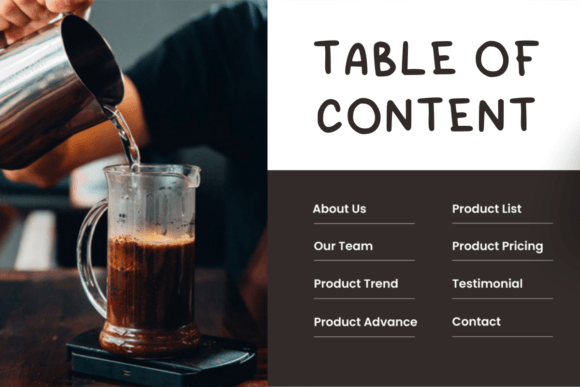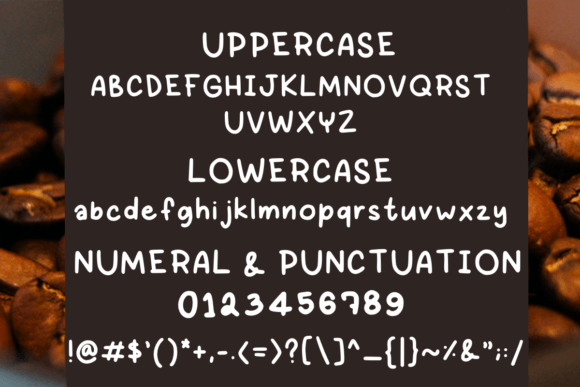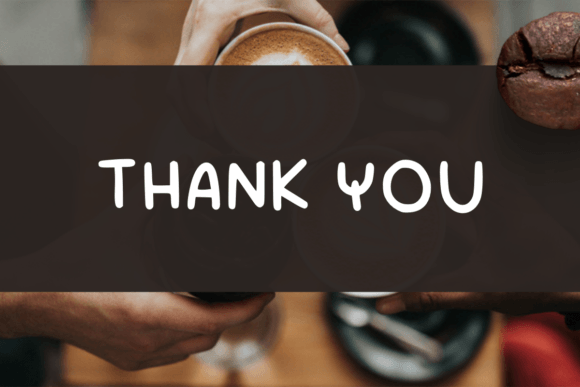
Steeped in Creativity: The Perfect Brew of Coffee Font
There’s nothing quite like the feeling of grabbing a warm cup of coffee and sitting down to brainstorm a new project. The world outside fades away, and all that’s left is you, your ideas, and the gentle hum of your computer. It’s in these moments that the right font can make all the difference, and that’s exactly where Coffee Font comes in.
This charming handwritten font is the perfect addition to any design project, from crafting a beautiful card to creating a presentation that wows. With its casual, neat style, Coffee Font is the ideal choice for designers who want to add a touch of personality to their work. Whether you’re a seasoned pro or just starting out, Coffee Font is a valuable tool that’s sure to become your go-to font for any occasion.
Coffee Font Key Features
- Font Family: Coffee Font is a sans-serif font family designed specifically for digital interfaces.
- Unique Characteristics: Coffee Font features a unique, modern design with a friendly and approachable feel, making it perfect for branding and marketing materials.
Coffee Font Review
At first glance, Coffee Font seems like a charming addition to any design project. The rounded edges and subtle texture give it a cozy feel, perfect for coffee shops, bakeries, or any brand looking for a warm atmosphere.
- ✨ Unique texture that adds a touch of personality to the font
- ✨ Wide range of font weights and styles to choose from
- ✨ Easy to read, even in smaller font sizes
- ⚠️ May not be suitable for highly technical or professional content
- ⚠️ Limited language support, may not be ideal for international projects
- ⚠️ May appear too casual or playful for certain brands or audiences
Overall, Coffee Font is a delightful font that can add a touch of warmth and personality to your design projects. However, it’s essential to consider the limitations and ensure it aligns with your brand’s tone and style.
1. Use the Coffee Font for headings and titles to add a touch of sophistication to your design.
2. Pair the Coffee Font with other fonts to create a unique and interesting design.
3. Use the Coffee Font for text that needs to stand out, such as product names or brand identities.
Common Use Cases for the Coffee Font
Here are some common use cases for the Coffee Font:
1. Brand identities and logos.
2. Product packaging and labeling.
3. Advertising and marketing materials.
4. Social media graphics and posts.
Alternatives to “Coffee Font” for Designers
Open Sans is a clean and modern sans-serif font designed by Steve Matteson. It’s perfect for digital products, websites, and mobile applications where a clear and readable font is required. Open Sans is a more versatile and professional alternative to Coffee Font, making it suitable for a wide range of projects.
Comparison: Open Sans has a more neutral and minimalist design compared to Coffee Font, which has a more distinctive and playful feel.